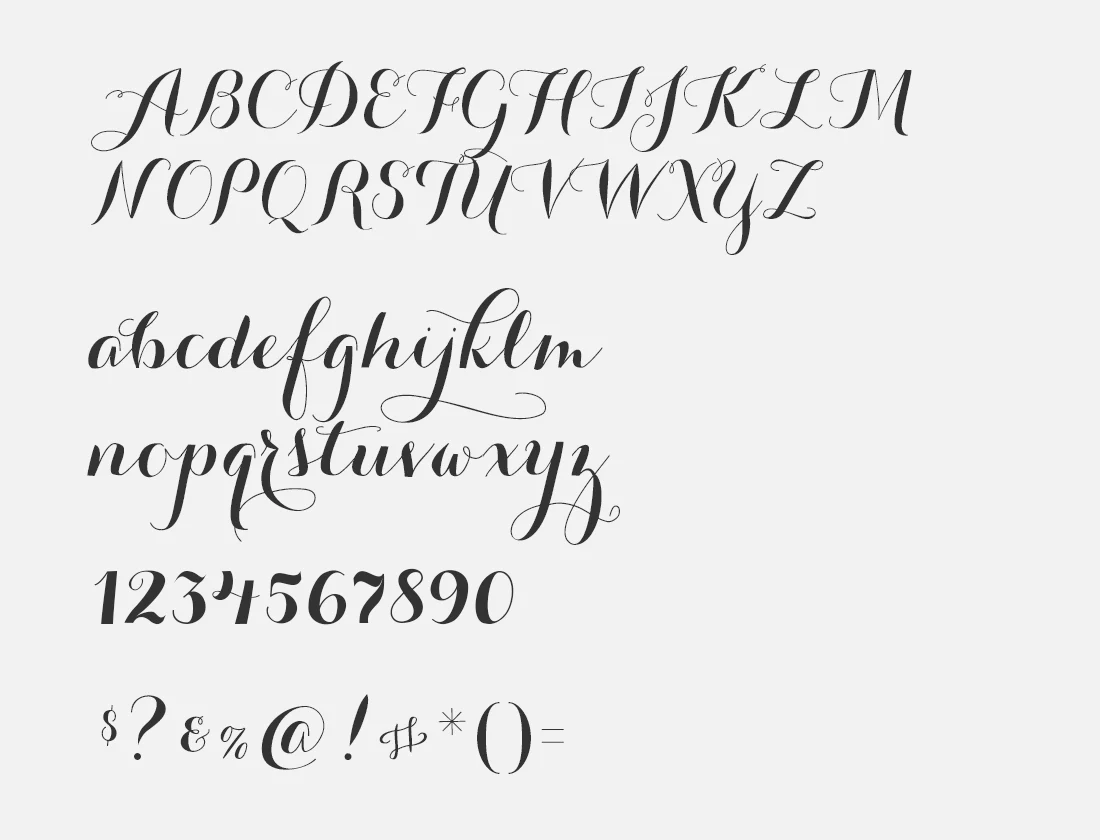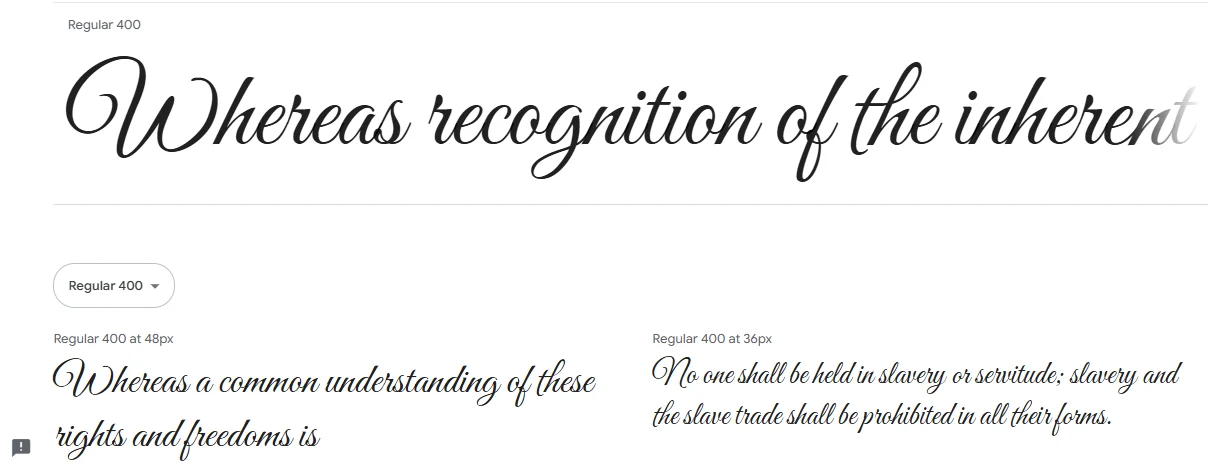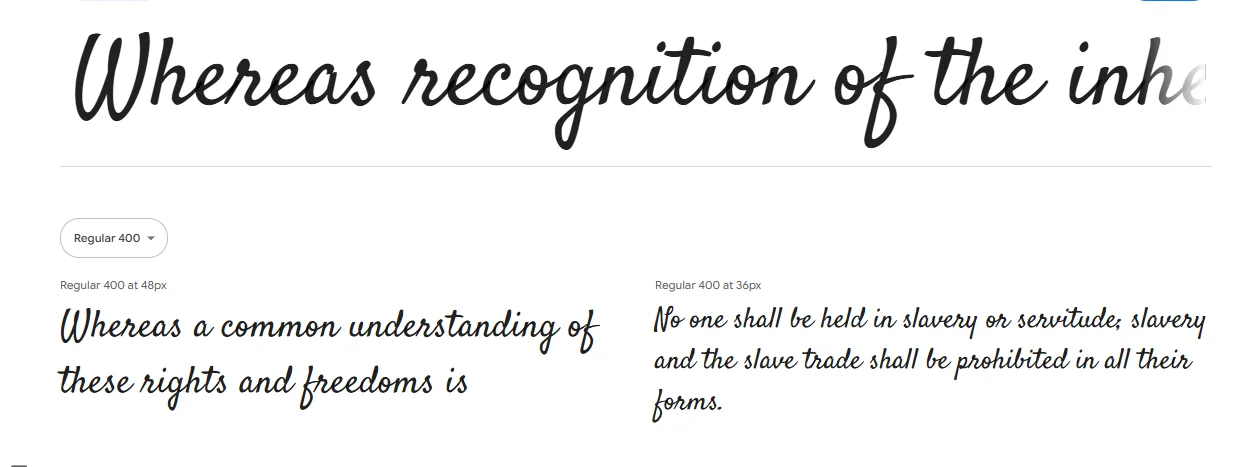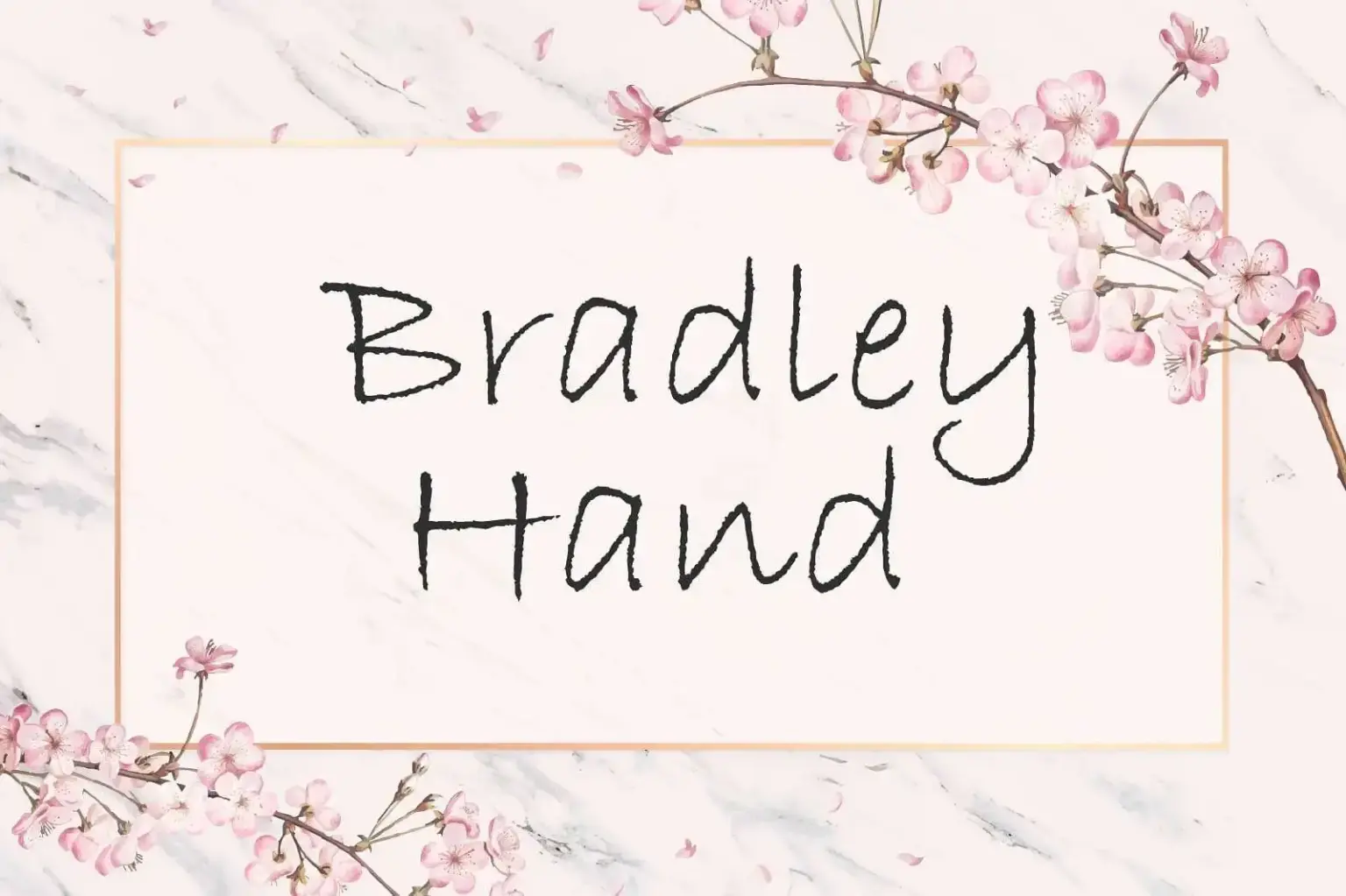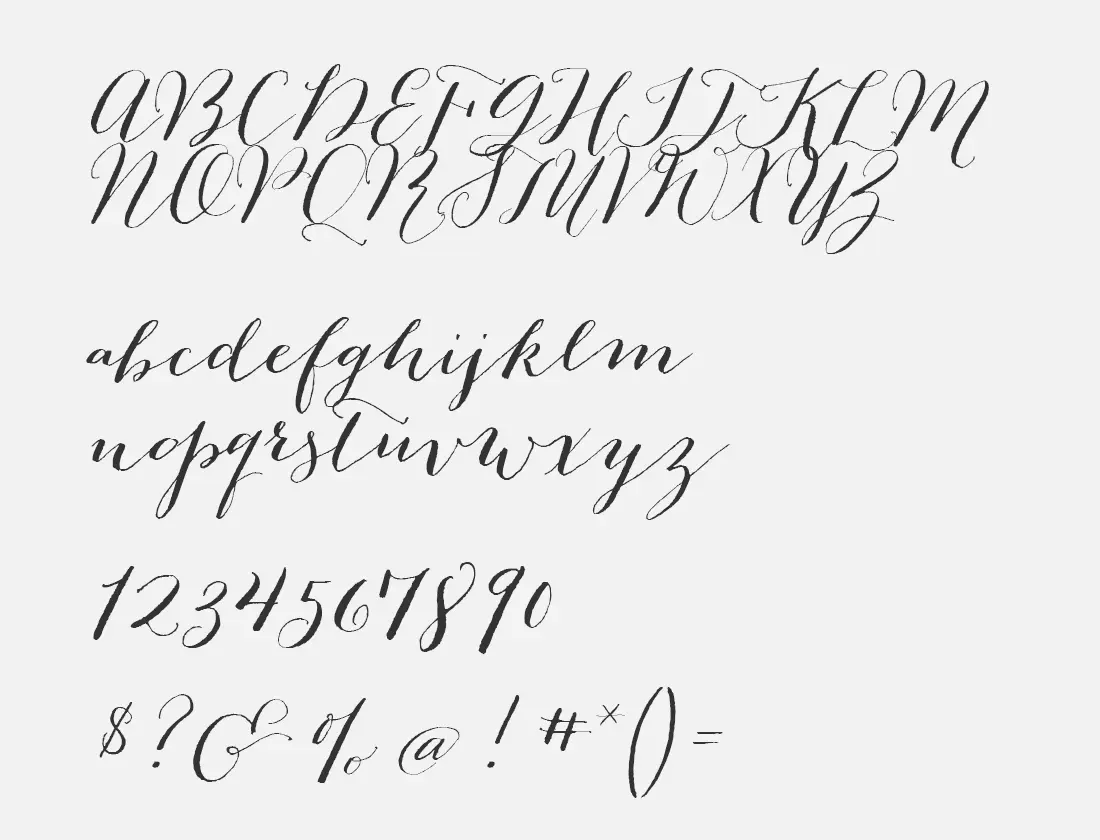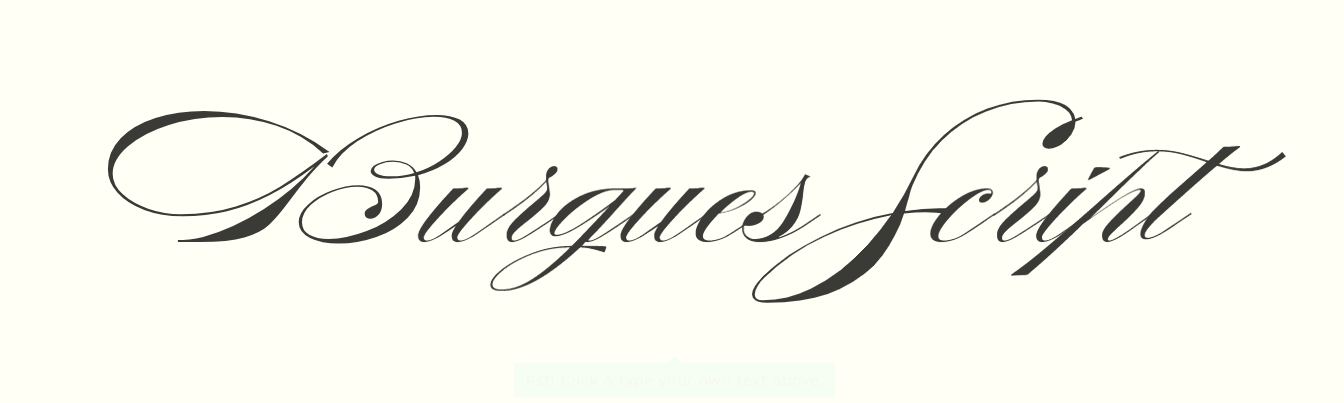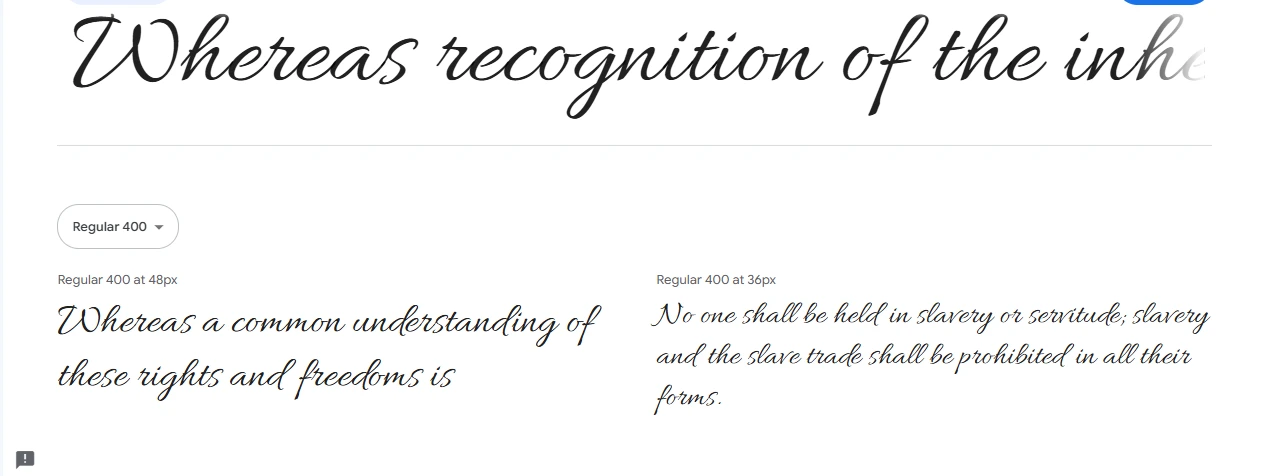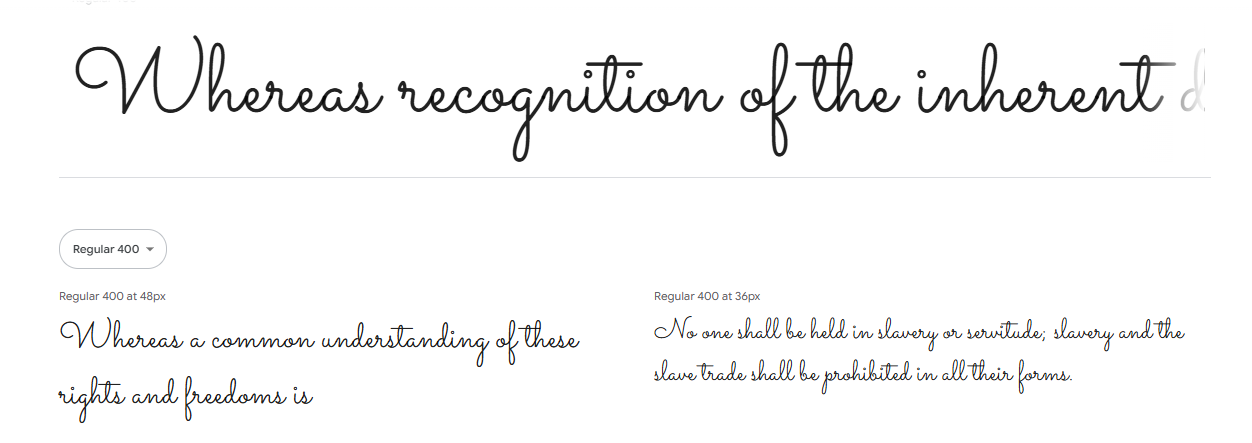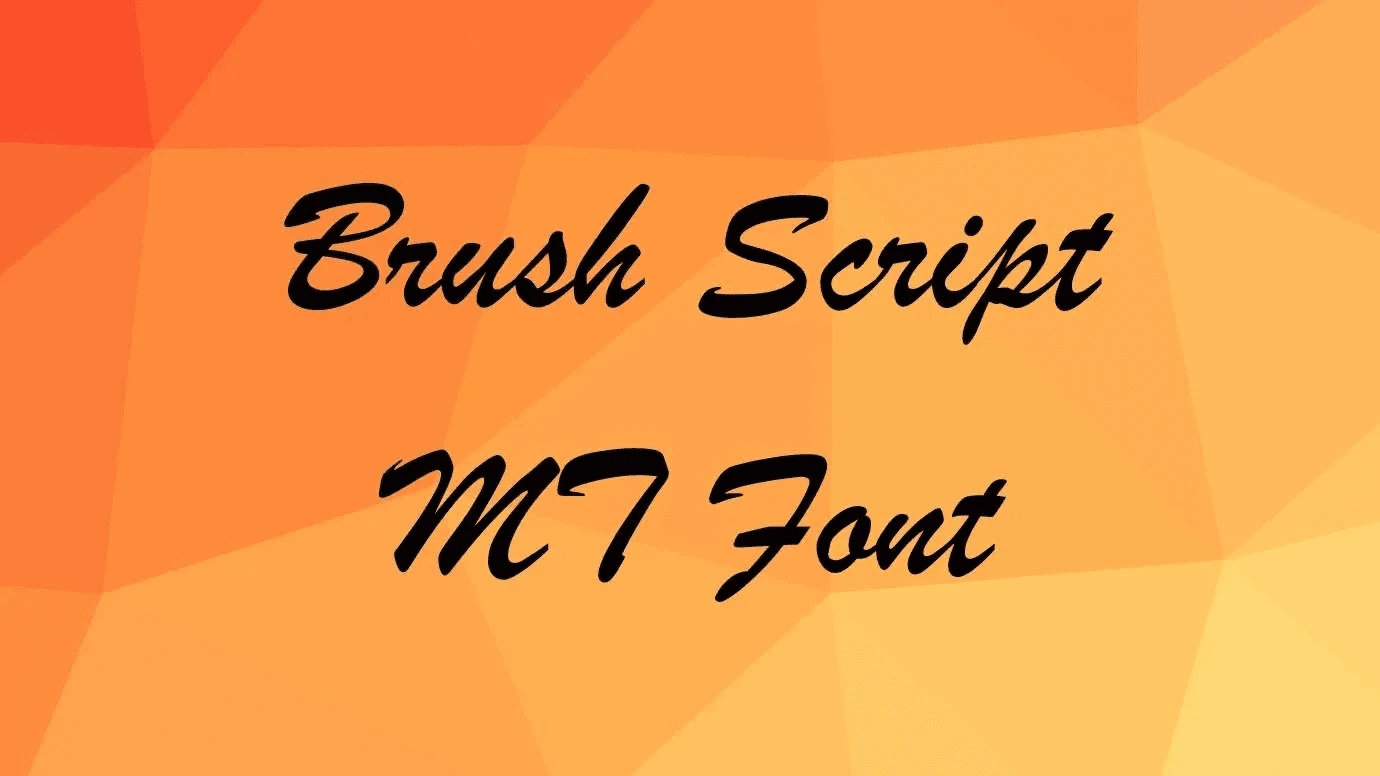
Cursive fonts imitate natural handwriting, flowing smoothly and connecting letters for a personal feel. They trace back to traditional calligraphy and early handwriting, and they remain popular in branding for their timeless charm. This guide looks at 25 of the best cursive fonts for 2025, then covers how to choose, pair and optimise them for your website.
What are cursive fonts?
Cursive fonts distinguish themselves from standard script fonts through their focus on fluidity and connected letterforms. In contemporary design they stay popular for their timeless charm and effectiveness in branding, making them ideal for warm, relatable designs.
Why choose cursive fonts?
Cursive fonts evoke emotional responses through their warm, authentic appearance and offer flexibility across logos, wedding invitations and personal blogs. Industries such as beauty and hospitality benefit from their elegance. Their key strengths are enhancing creativity, adding sophistication and conveying a personal quality that sets designs apart.
The 25 best cursive fonts of 2025
1. Brush Script MT
Brush Script MT combines elegance with simplicity through its natural handwriting appearance. Smooth curves and consistent strokes keep it readable while delivering sophistication, so it suits professional headings, decorative titles, invitations and formal messages.
- Handwritten appearance
- Balanced strokes for readability
- Sophisticated, versatile design
2. Great Vibes
Great Vibes is an elegant script with smooth, flowing characters inspired by calligraphy. Thin strokes and subtle flourishes add sophistication while keeping it clear, feeling modern yet timeless.
- Flowing, elegant curves
- Thin strokes with calligraphic detail
- High readability for formal uses
Best for: Invitations and wedding cards, luxurious logos, formal branding.
3. Pacifico
Pacifico combines retro charm with a friendly character through its playful cursive design. Rounded letters and smooth connections create a welcoming atmosphere.
- Retro-inspired cursive style
- Smooth connections for visual flow
- Rounded, friendly letterforms
Best for: Personal branding, nostalgic designs, fun casual logos.
4. Allura
Allura stands out with a clean, simple design and smooth, refined strokes. It combines elegance with ease, making it ideal for professional and formal settings.
- Clean and simple strokes
- Refined curves for elegance
- Highly readable design
Best for: Formal announcements, professional titles, event materials.
5. Dancing Script
Dancing Script is a lively font with a modern sensibility. Its casual charm makes text feel personal and approachable, with slightly bouncing letters adding energy.
- Dynamic, flowing structure
- Energetic, slightly bouncy letters
- Casual yet modern style
Best for: Creative branding, personal projects, engaging headlines.
6. Satisfy
Satisfy offers vintage elegance through a stylish cursive flow. Its well-balanced letterforms create a harmonious design suited to nostalgic branding and decorative work.
- Stylish cursive flow
- Vintage-inspired design
- Balanced and connected strokes
7. Lucida Handwriting
Lucida Handwriting combines clarity with decorative elements through its humanist design. It mimics traditional calligraphy while staying highly readable.
- Clear and readable structure
- Decorative yet balanced design
- Inspired by humanist styles
Best for: Greeting cards, elegant logos, stylish personal projects.
8. Sacramento
Sacramento’s monoline script offers elegance through simplicity. Its semi-connected flow creates a neat, consistent appearance with timeless appeal.
- Monoline strokes for a clean look
- Semi-connected, smooth flow
- Timeless and classic appeal
9. Carolyna Pro Black
Carolyna Pro Black offers graceful letterforms with whimsical details, combining intricate swashes with clean readability for high-end designs.
- Graceful and whimsical letterforms
- Delicate swashes and clean lines
- Excellent legibility at all sizes
Best for: Wedding invitations, luxury branding, romantic projects.
10. Thirsty Script
Thirsty Script blends modern and retro elements seamlessly. Its bold, flowing style captures attention while staying professional.
- Bold and flowing strokes
- Combines modern and retro vibes
- Stylish and versatile design
Best for: Eye-catching branding, standout headings, creative logos.
11. Belinda
Belinda is a neat, graceful font that balances simplicity with sophistication. It stays highly readable at all sizes while keeping an elegant character.
- Neat and flowing letterforms
- Elegant yet simple design
- Highly readable at all sizes
12. Hipster Script Pro
Hipster Script Pro merges retro charm with modern style through bold strokes and playful curves that capture attention.
Final thoughts
Cursive fonts bring style, personality and elegance to your designs. From branding to personal projects, they set your work apart with distinctive character. Whether you choose a timeless classic or a modern interpretation, cursive fonts offer plenty of creative ways to add warmth and sophistication.